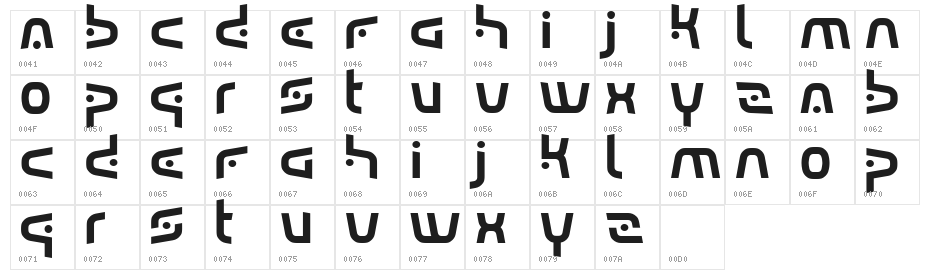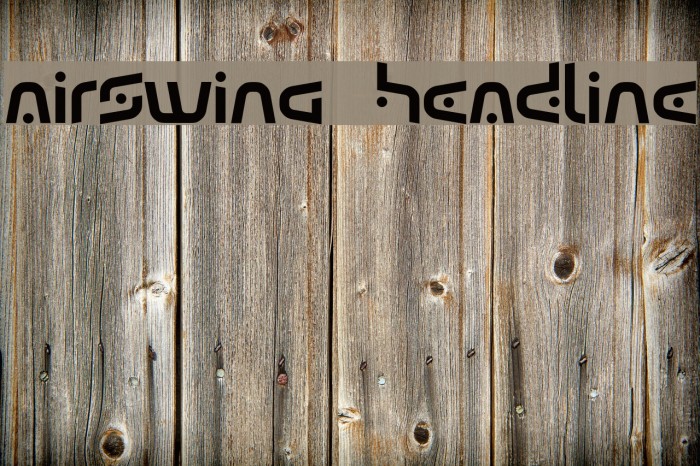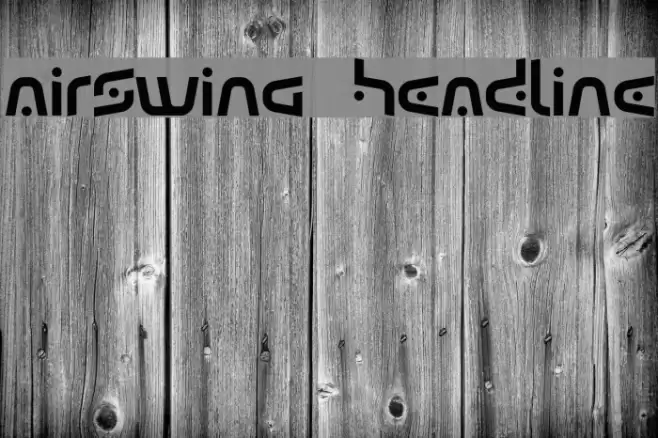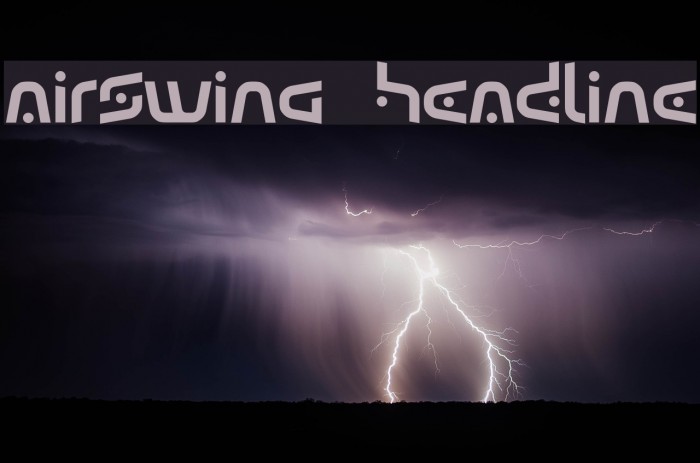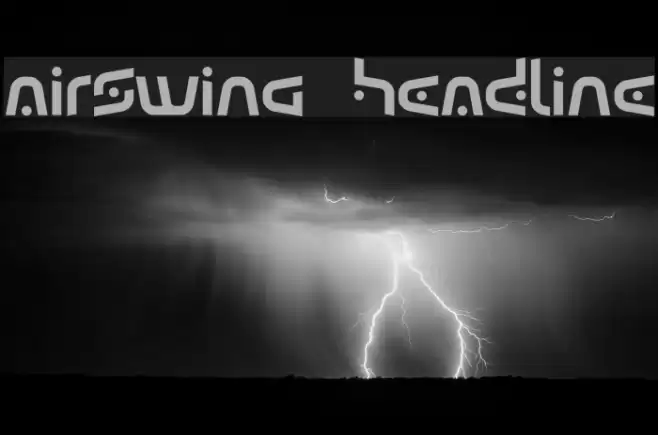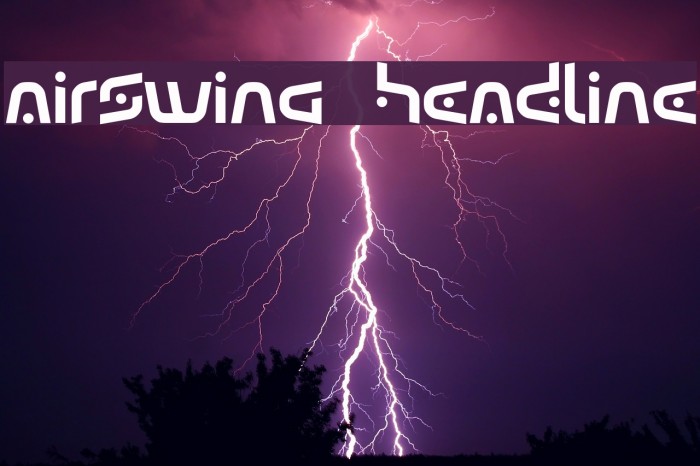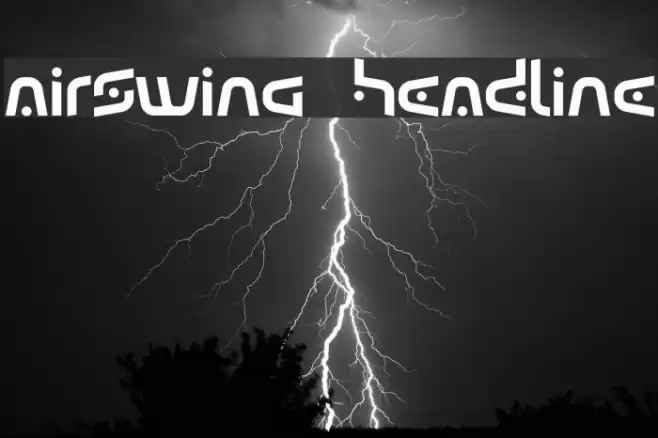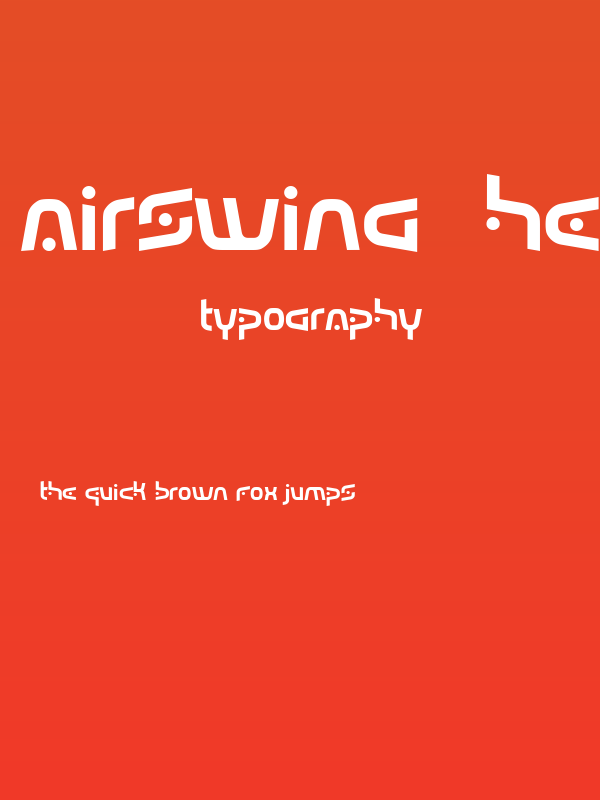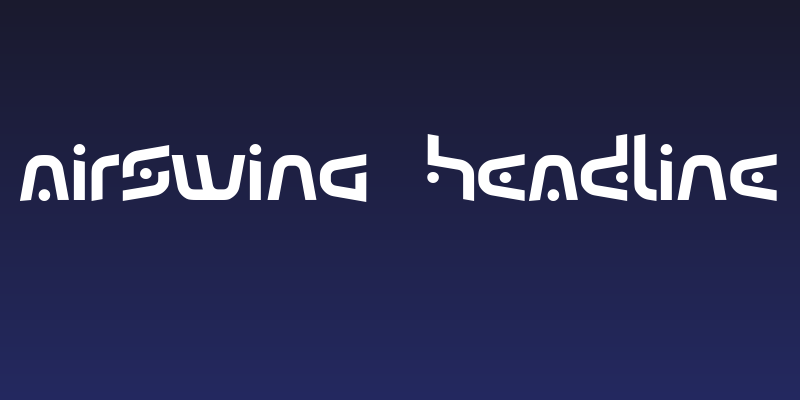
Airswing Headline Font
Airswing Headline Description
This font features a futuristic and geometric design, characterized by its bold and angular letterforms. The characters are crafted with a unique blend of sharp edges and rounded elements, creating a dynamic and modern appearance. The uppercase and lowercase letters maintain a consistent style, with distinct cutouts and a uniform stroke width that adds to its contemporary feel. The numbers and special characters follow the same design principles, ensuring a cohesive look across all elements. This font is ideal for projects that require a bold and eye-catching typeface, such as headlines, posters, and branding materials.